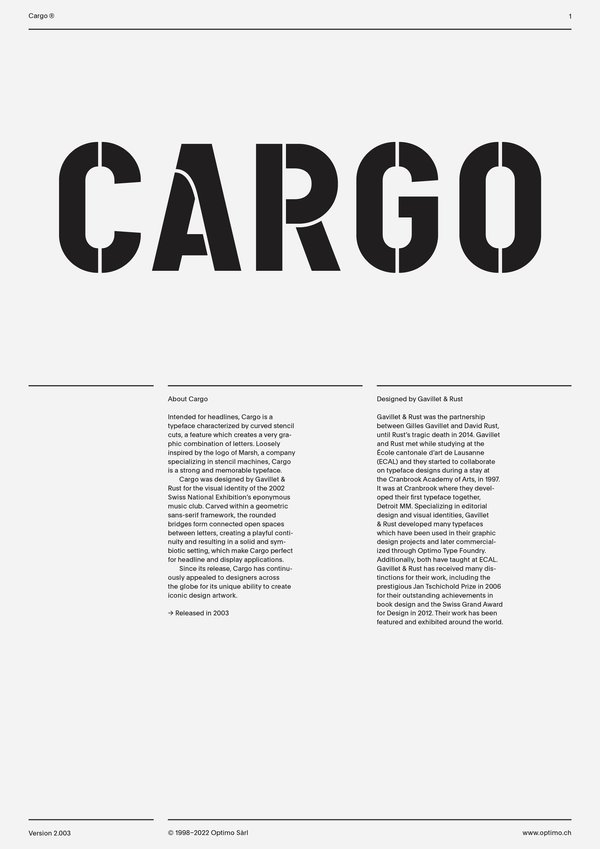
Cargo
Cargo was designed by Gavillet & Rust for the visual identity of the 2002 Swiss National Exhibition’s eponymous music club. Carved within a geometric sans-serif framework, the rounded bridges form connected open spaces between letters, creating a playful continuity and resulting in a solid and symbiotic setting, which make Cargo perfect for headline and display applications.
Since its release, Cargo has continuously appealed to designers across the globe for its unique ability to create iconic design artwork.